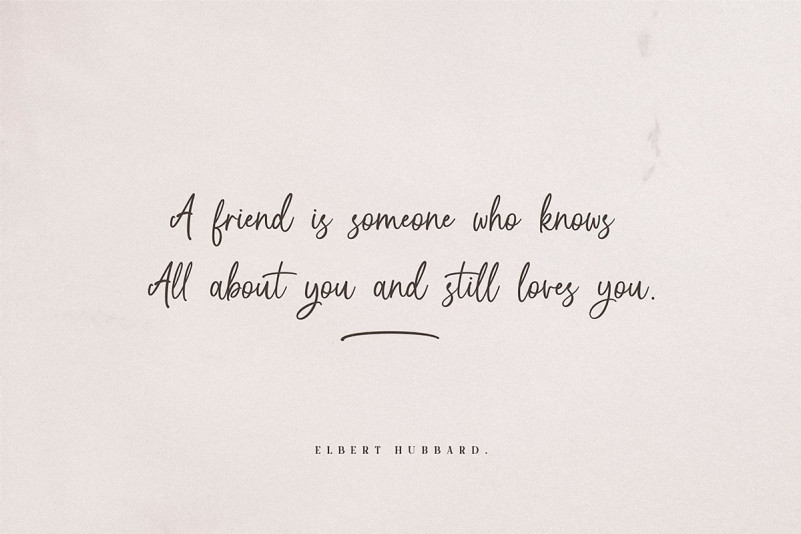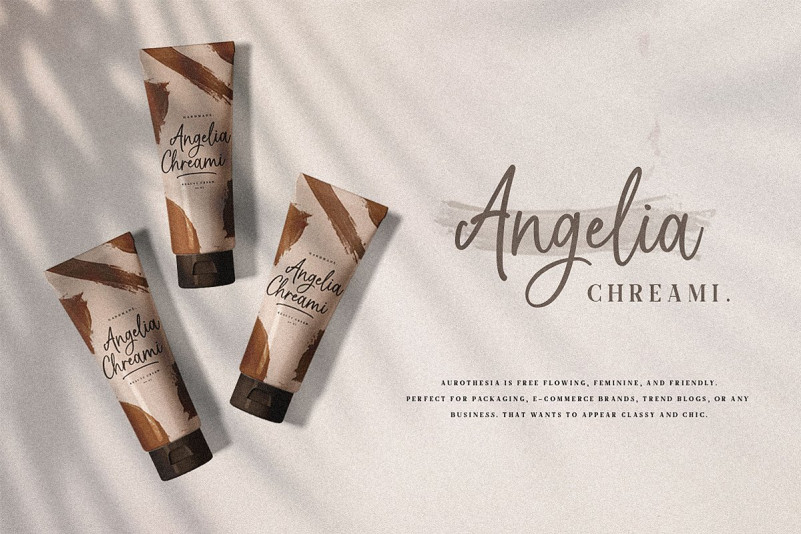
Aurotheisa Casual Chic Font
Introducing our latest product the Aurotheisa Font Duo! classy, contemporary pair of script and serif fonts. It is free-flowing, feminine, fashionable and friendly. Aurotheisa is perfect for fashion, e-commerce brands, trend blogs, or any business that wants to appear casual and chic.